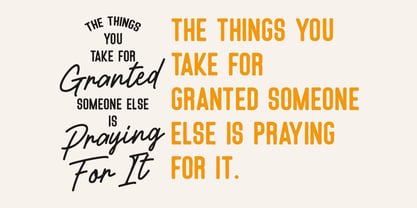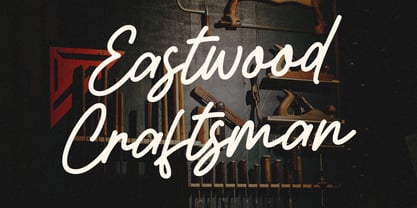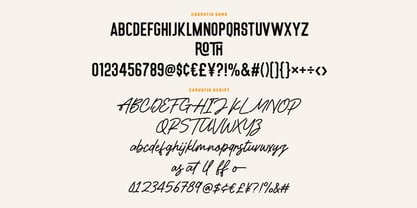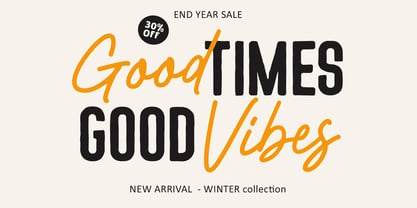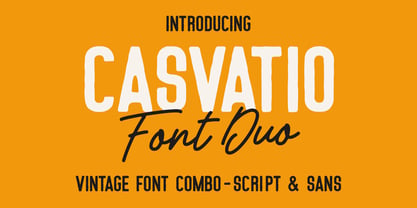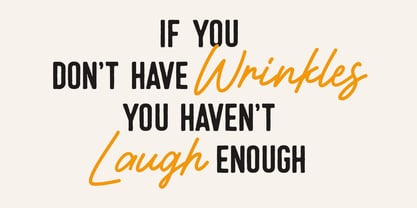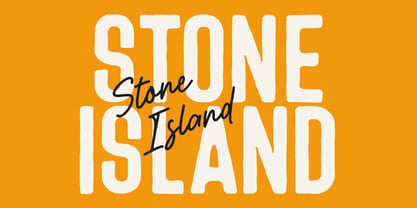
MC Casvatio Duo
by Maulana Creative
The MC Casvatio Duo Font Family was designed by Gilang Maulana and published by Maulana Creative. MC Casvatio Duo contains 2 styles and family package options. More about this family
Casvatio Font Duo is a masterfully paired typography set designed to bring an authentic, hand crafted feel to your creative projects. This combo features a bold, rugged Sans Serif with slightly rounded edges and a fluid, elegant Signature Script that flows with natural grace. Inspired by classic signage and mid century adventure aesthetics, Casvatio is the perfect choice for logos, design, brewery branding, social media quotes, and vintage style. Whether you are aiming for a rugged craftsman look or a sophisticated good vibes lifestyle brand, this duo provides a balanced contrast that makes any layout stand out effortlessly.
Designers: Gilang Maulana
Foundry: Maulana Creative